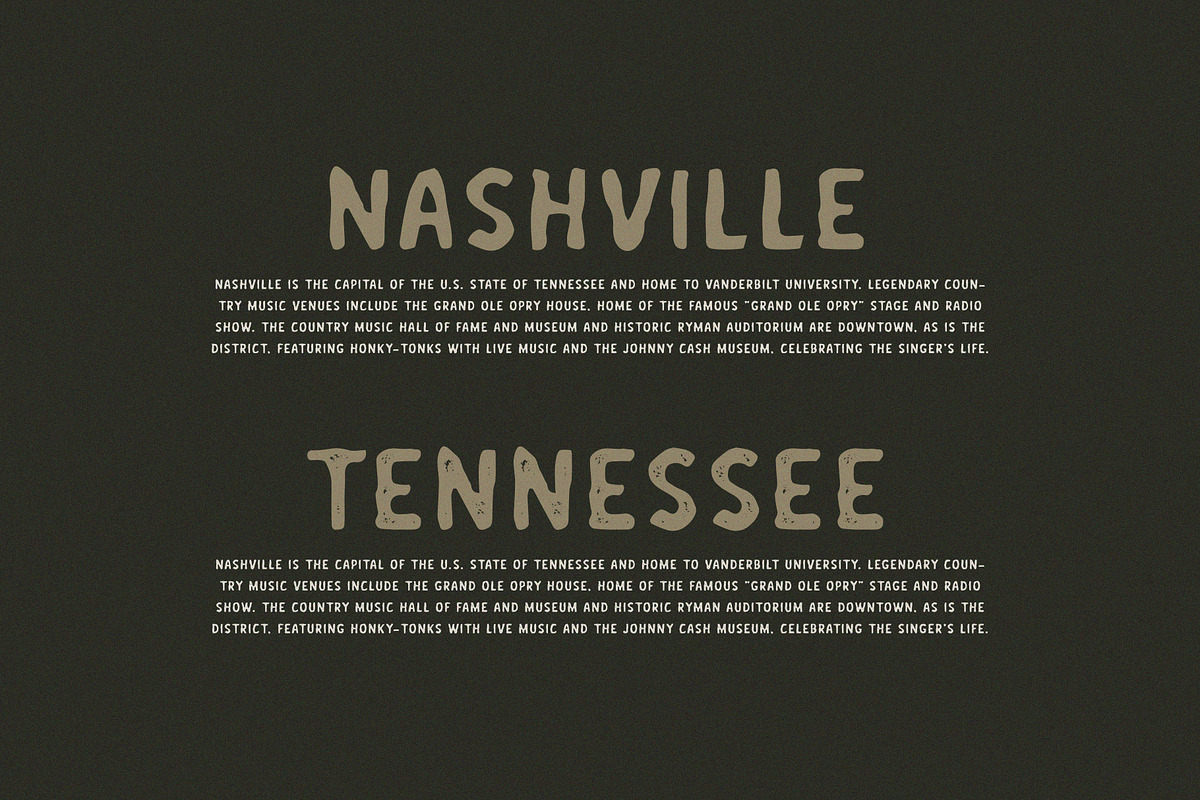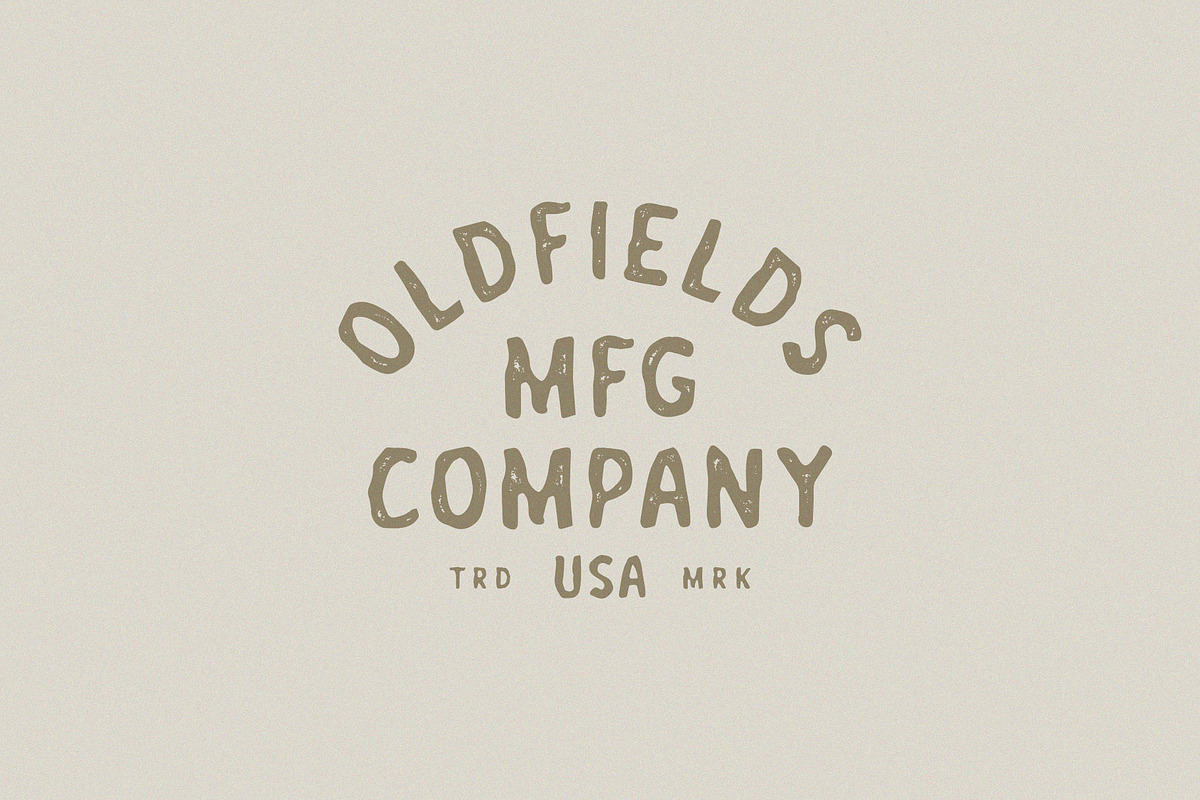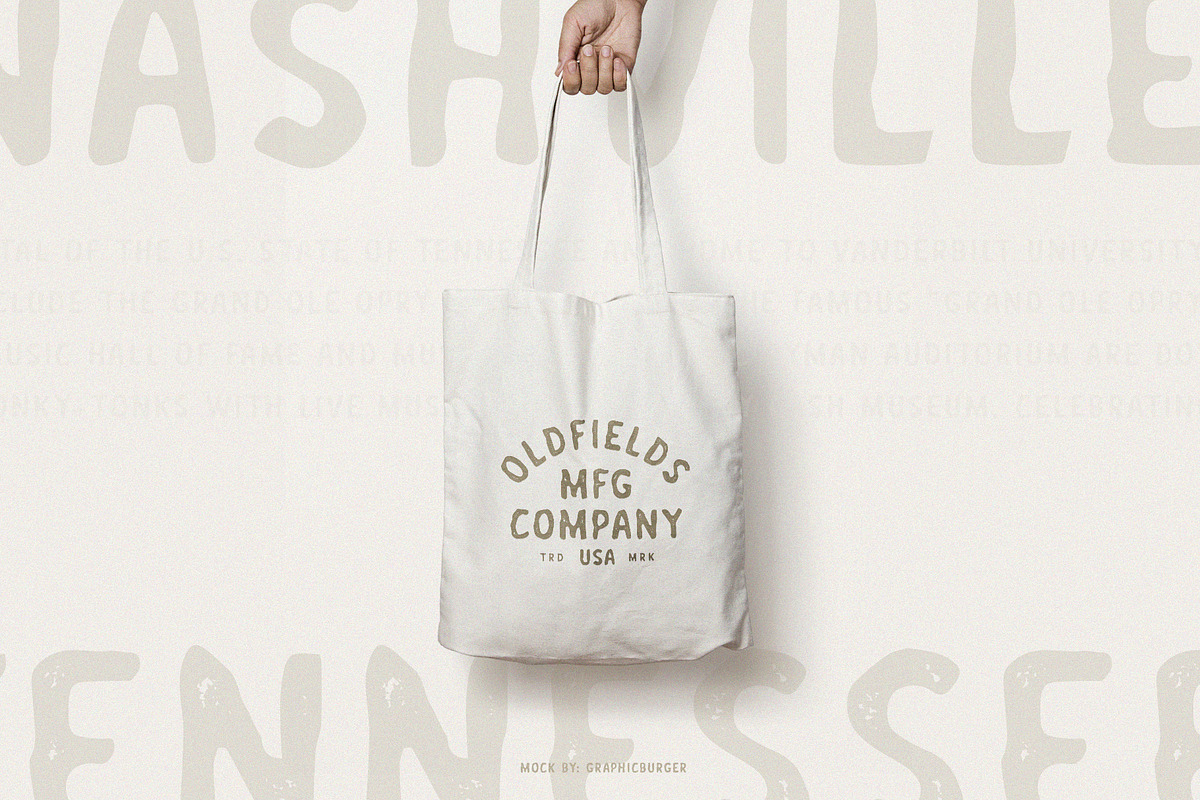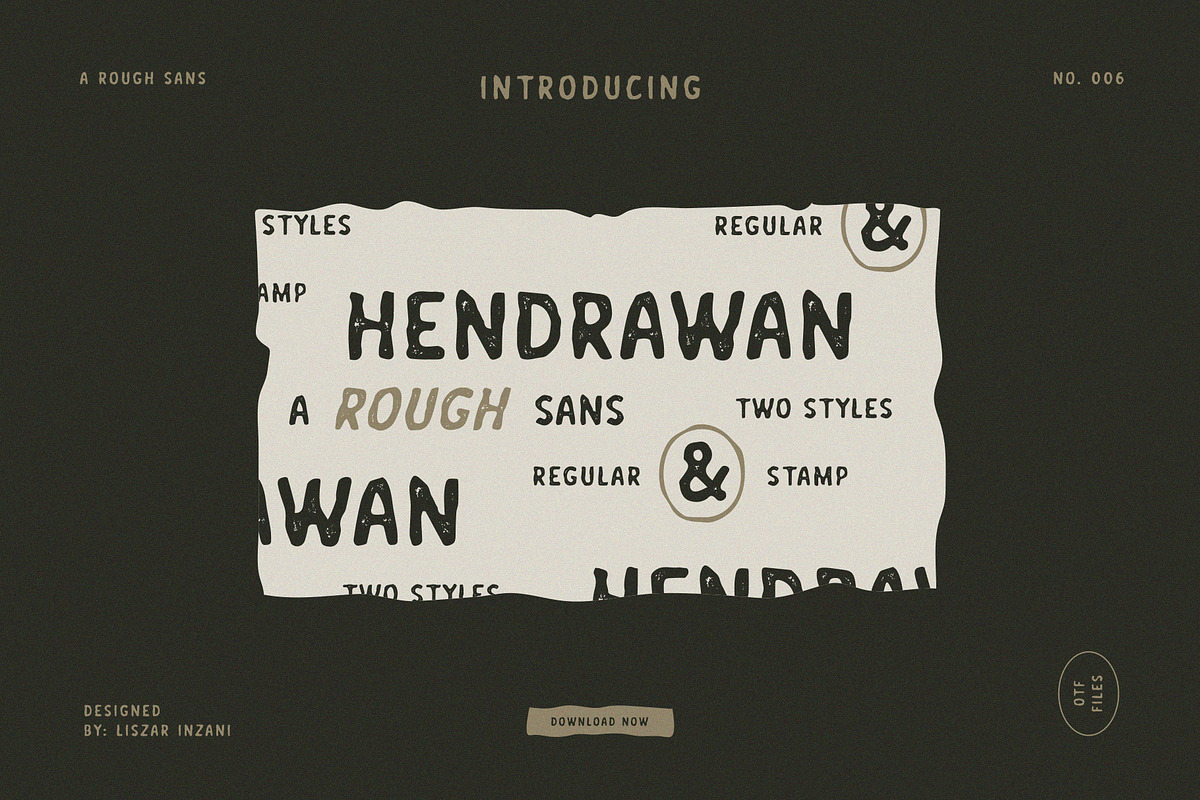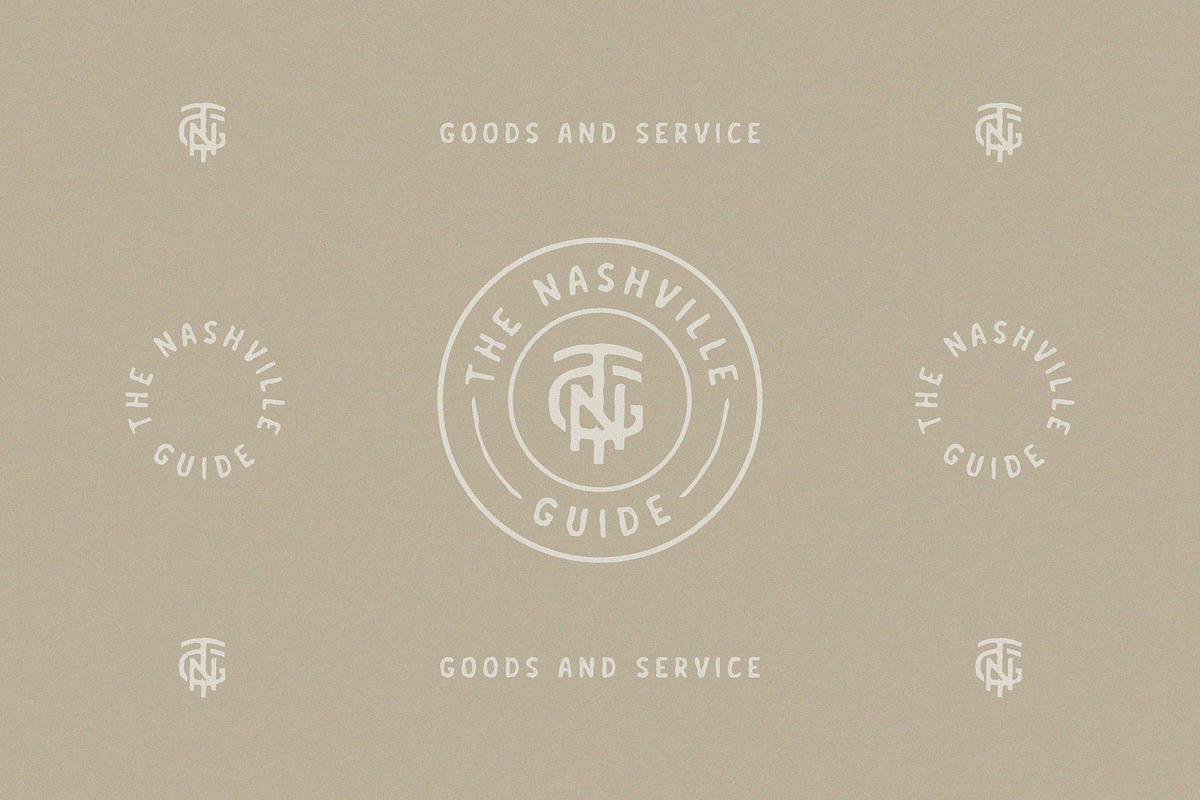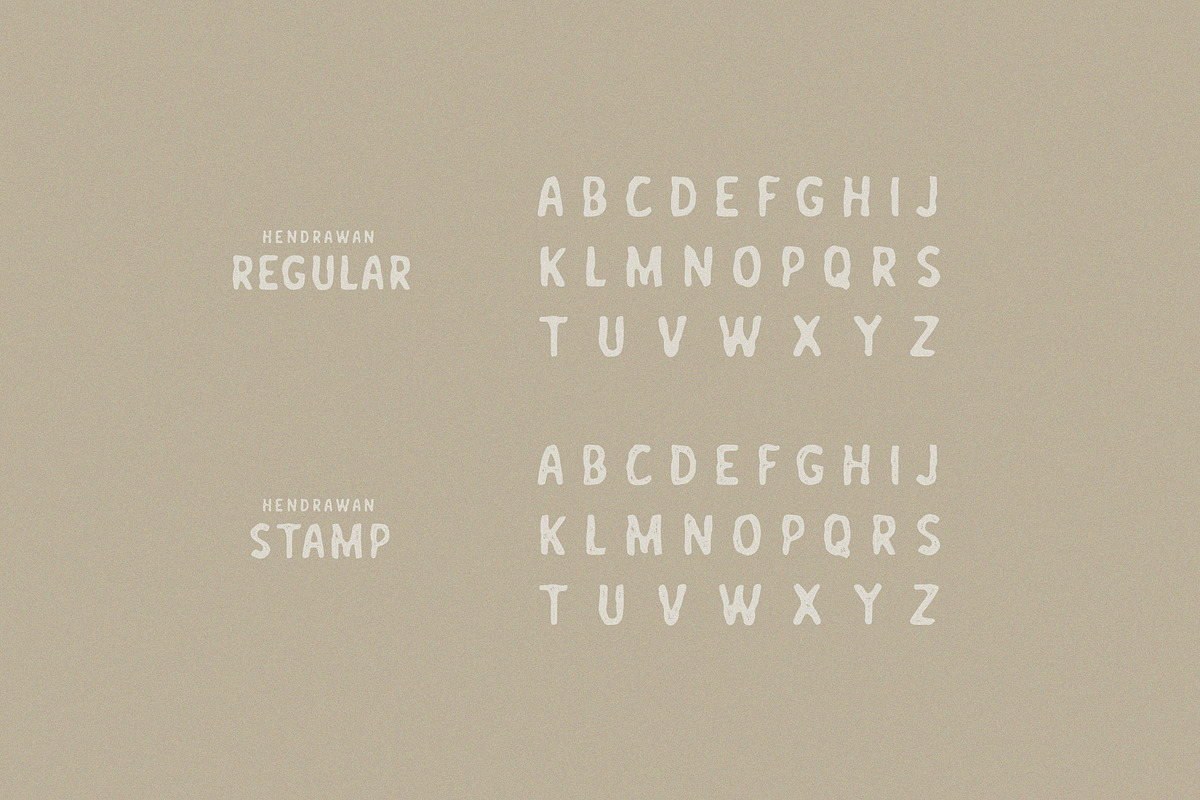
Hendrawan: A Rough Sans
Introducing, HENDRAWAN -A Rough Sans
HENDRAWAN is a hand drawn font with natural and rough feels. Hendrawan is a will gives a vintage aesthetic that you are looking for, comes with 2 styles Regular and Stamp version. It works great for vintage branding, logo, t-shirts, label/badges design and more.